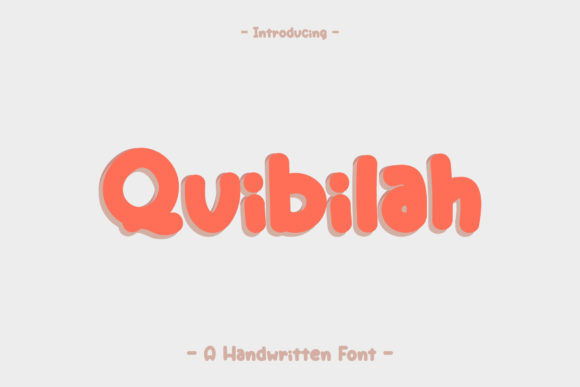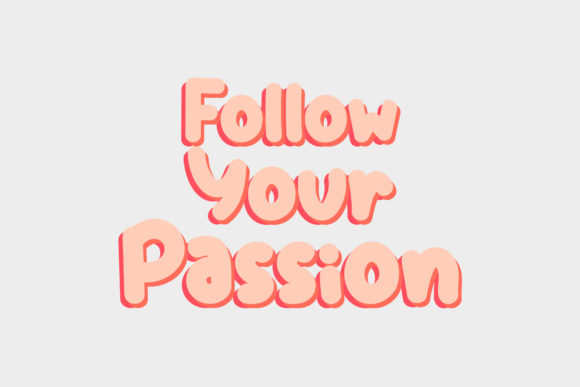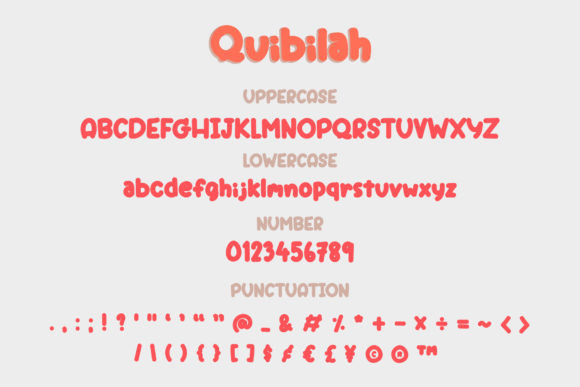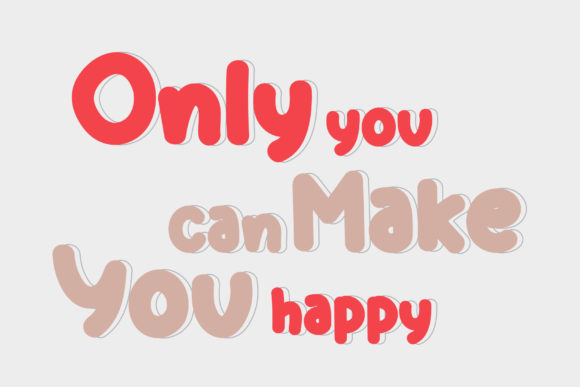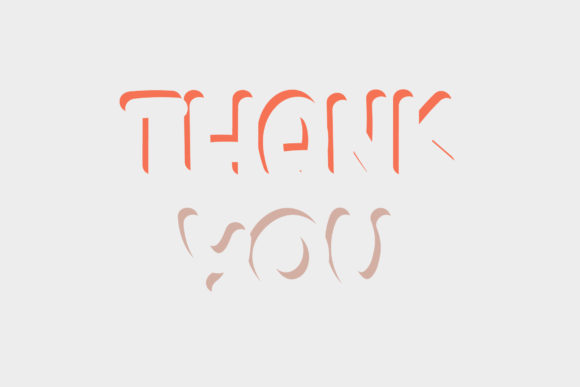
Quibilah Font
Quibilah is a bold yet incredibly friendly handwritten font. Masterfully handcrafted to become a true favorite, this casual font is the perfect choice for a wide variety of designs.